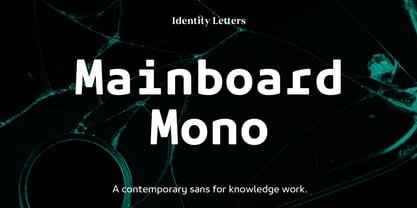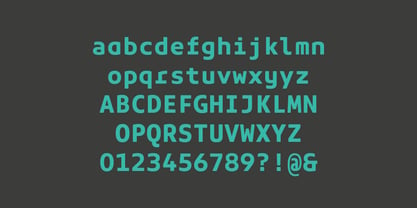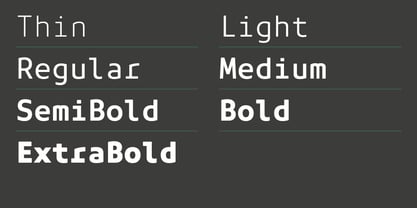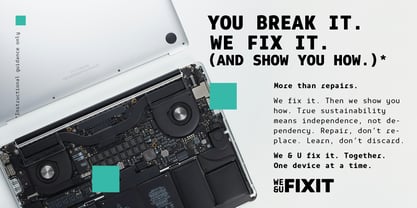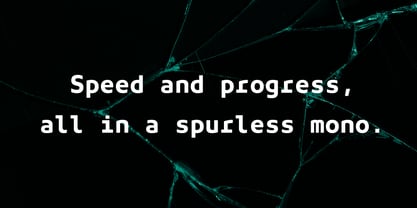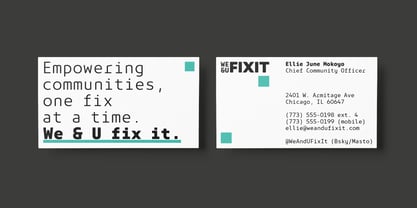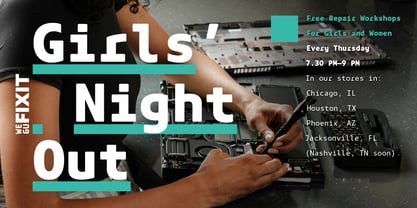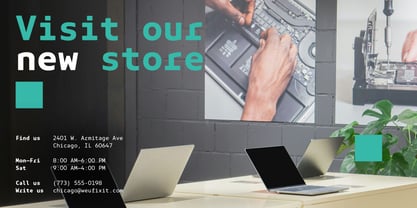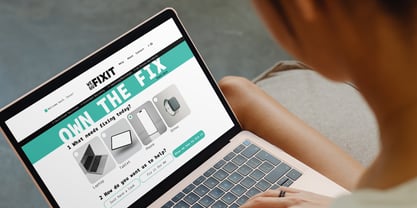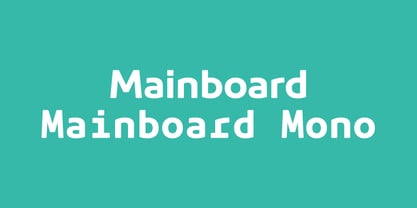
Mainboard Mono
The Mainboard Mono Font Family was designed by Moritz Kleinsorge and published by Identity Letters. Mainboard Mono contains 7 styles and family package options. More about this family
They’re worlds apart—or so it seems. But sports and computing have one thing in common: the constant pursuit of speed and progress. The Mainboard superfamily is our approach to expressing these ambitions typographically. Mainboard Mono has been developed from a sleek, spurless sans with on-screen usage in mind. Generous apertures and rectangular dots ensure easy legibility in all resolutions. The family of 7 weights comes with 500+ glyphs. You can fine-tune it by toggling various stylistic sets and figure sets. Pair it with its proportional sibling, Mainboard: this winning combination might just give you the edge over those runner-ups breathing down your neck while you’re coding the future.